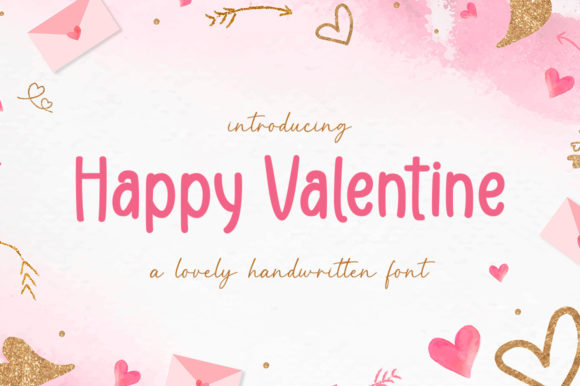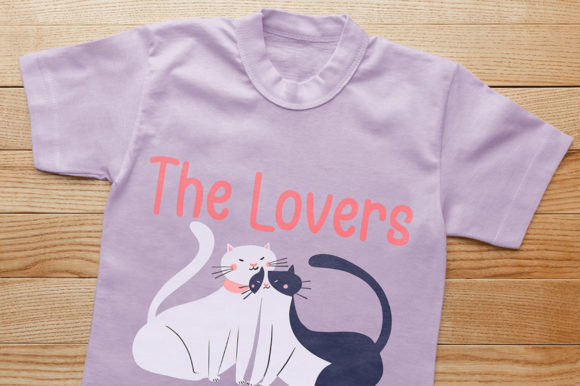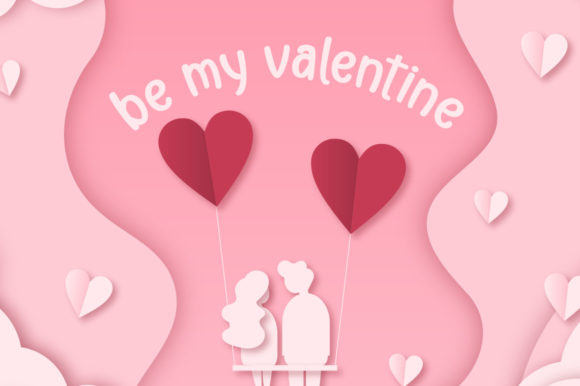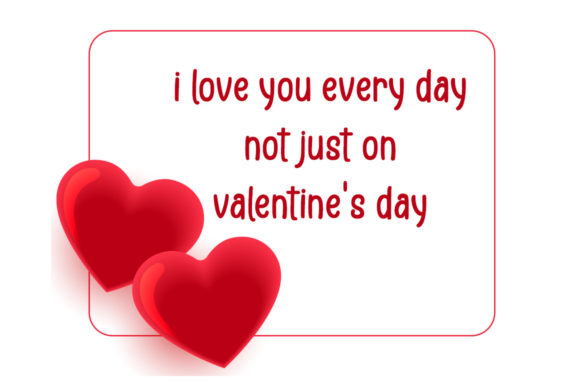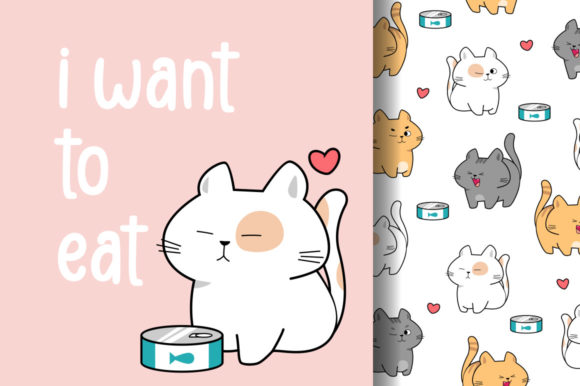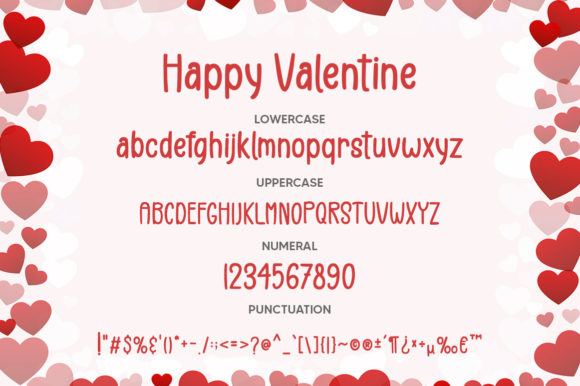
Happy Valentine Font
About Happy Valentine Font
Happy Valentine is a cute and simple-lettered display font perfect for all the chalkboard quotes and teaching materials you wish to create! Its authentic look will add a personal and realistic feel to your designs.